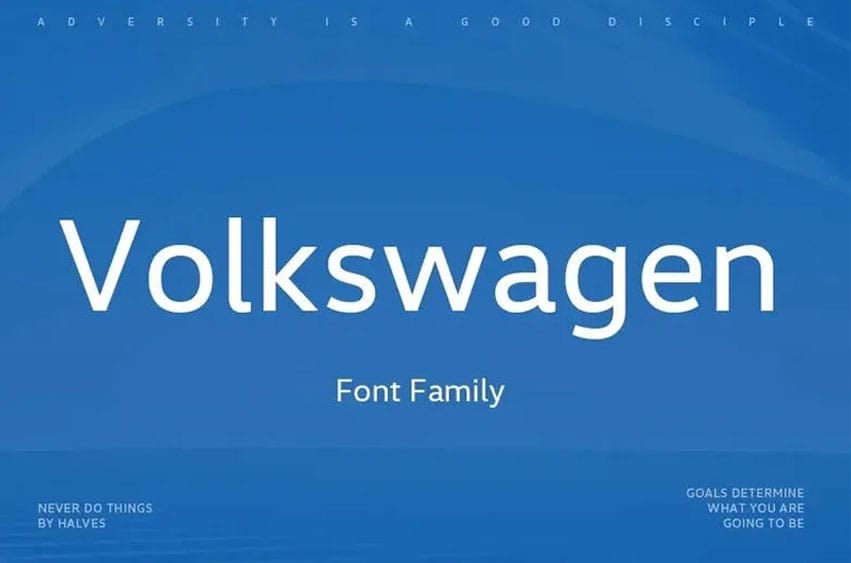
Volkswagen Font is the sans serif typeface family. This font typeface has 14 font styles and Soft Maker has published this font. Volkswagen is the famous car brand company. It’s a Sans Serif font which resembles Futura fonts at the same time mixing in the hotter facets of humanist fonts. First-class choose for typographic posters, and for records.